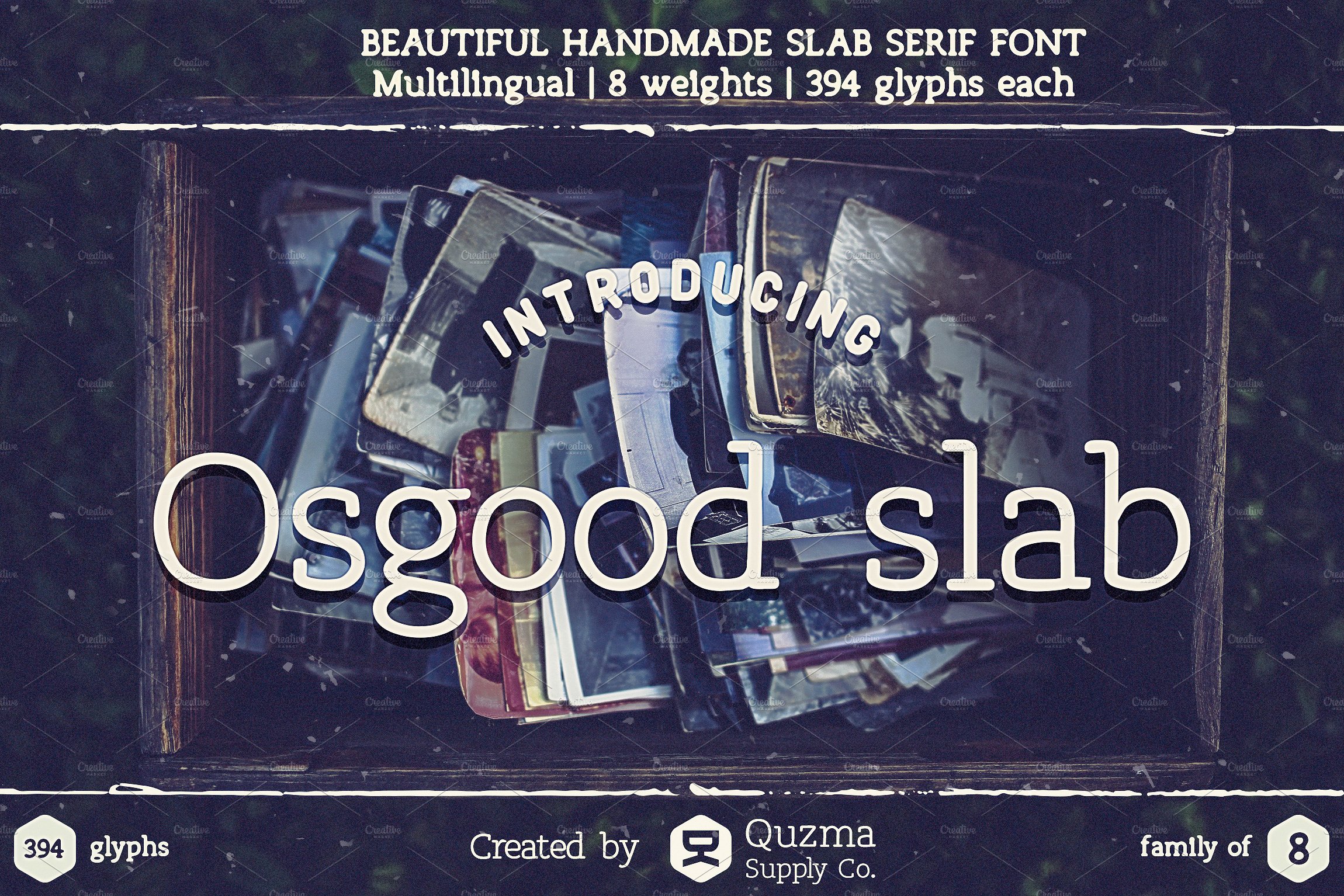
Osgood Slab Font
OSGOOD SLAB is a delicious handmade slab serif font, great for paragraphs of text, signs, vintage art, quotes and general use. It works best in larger sizes.